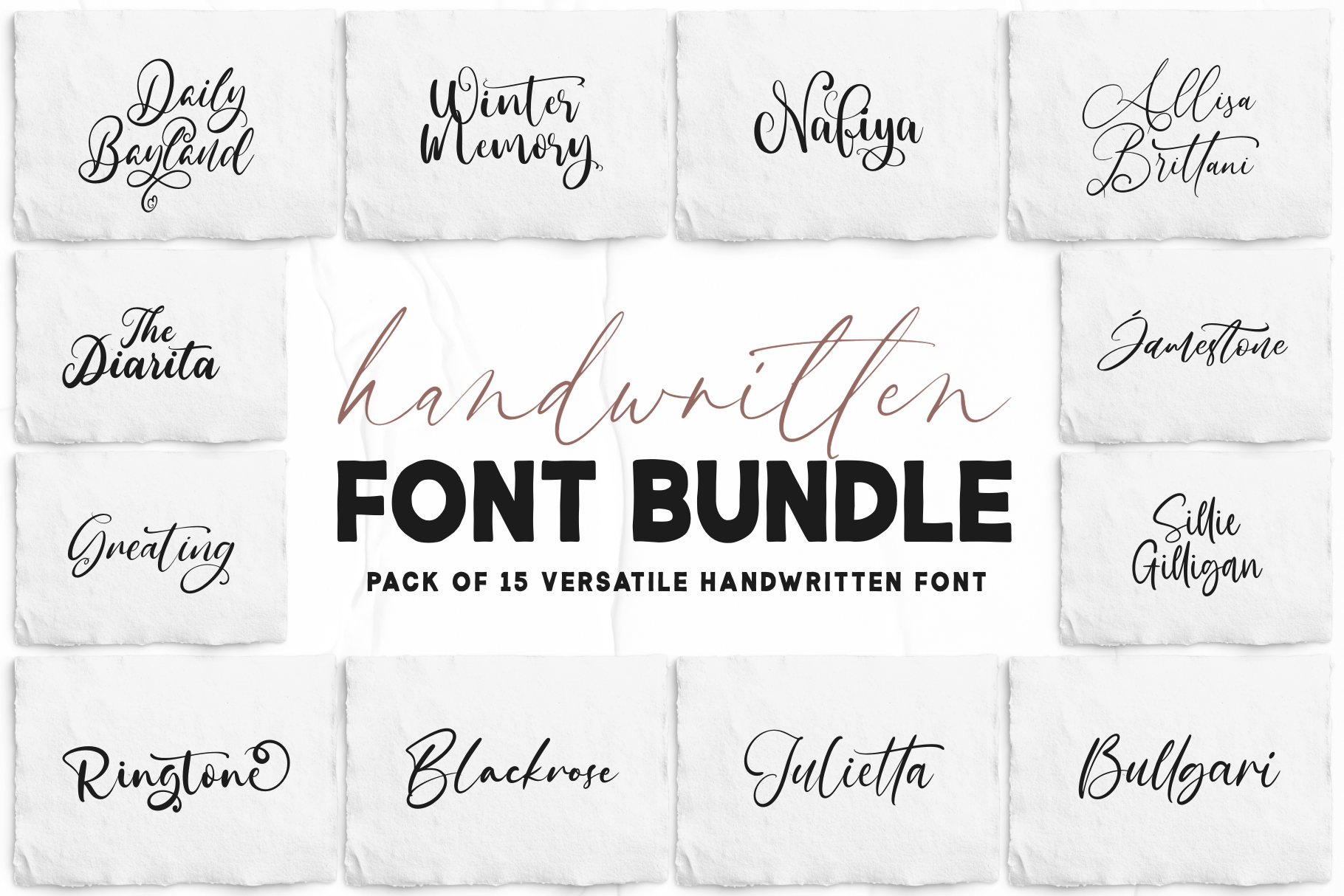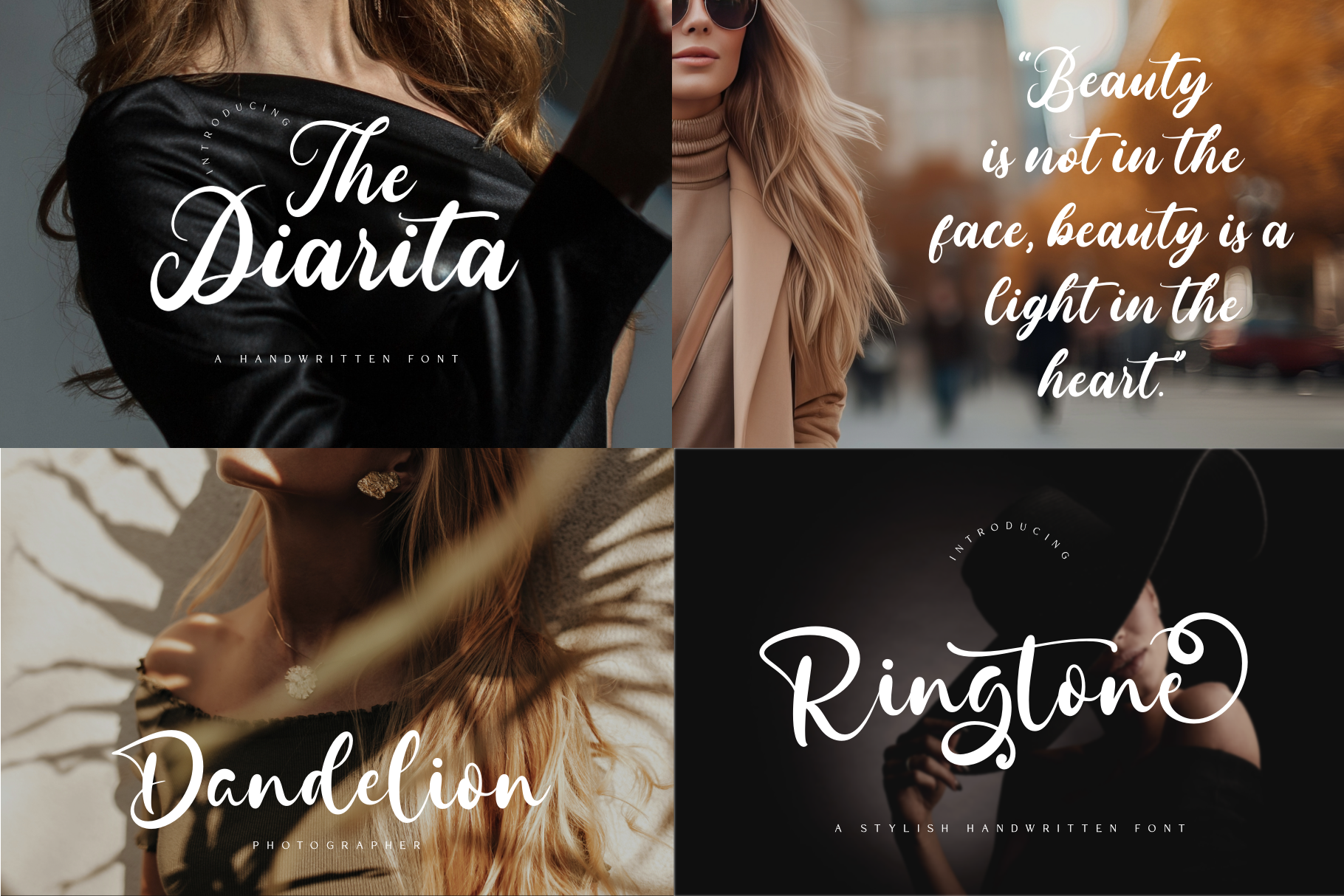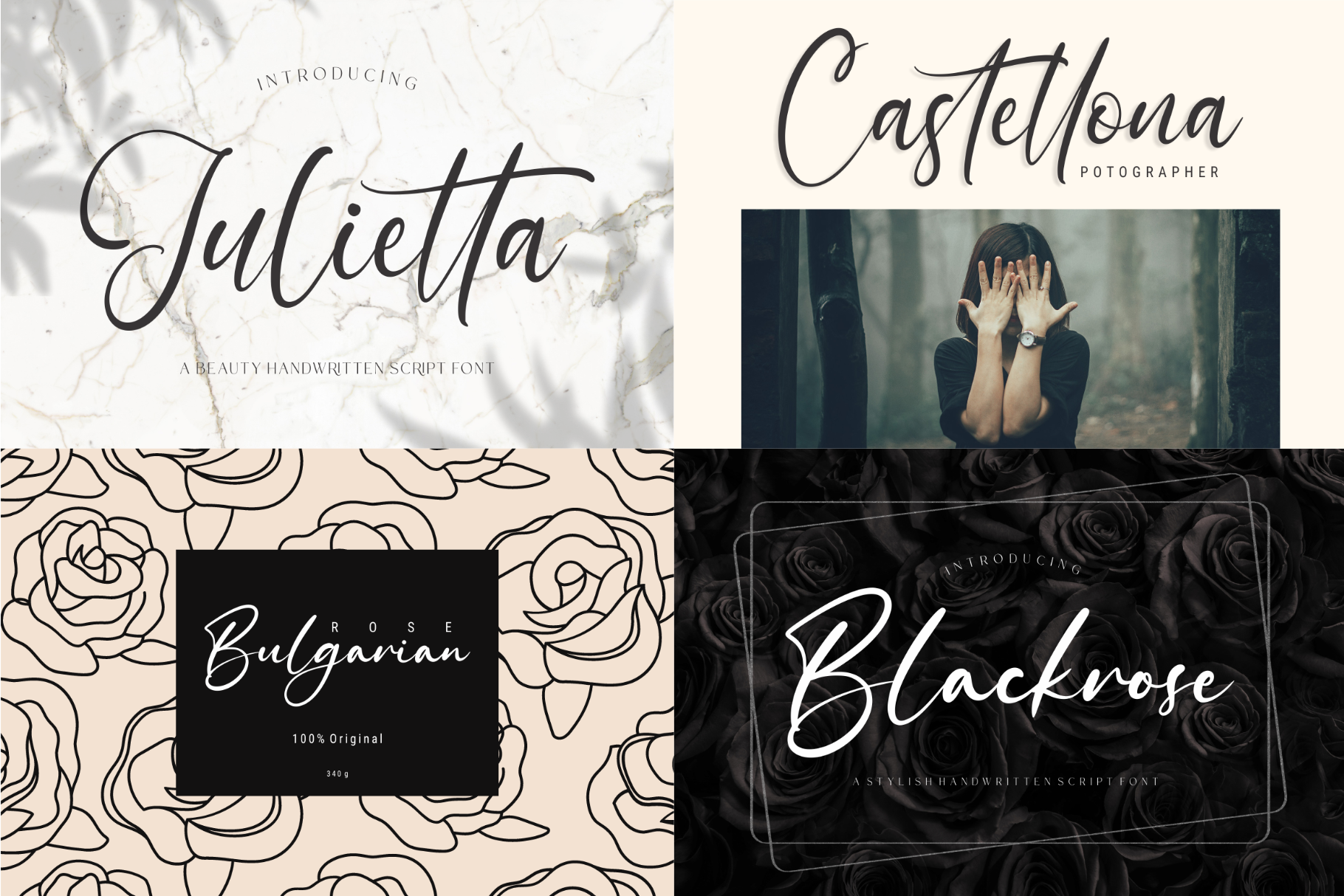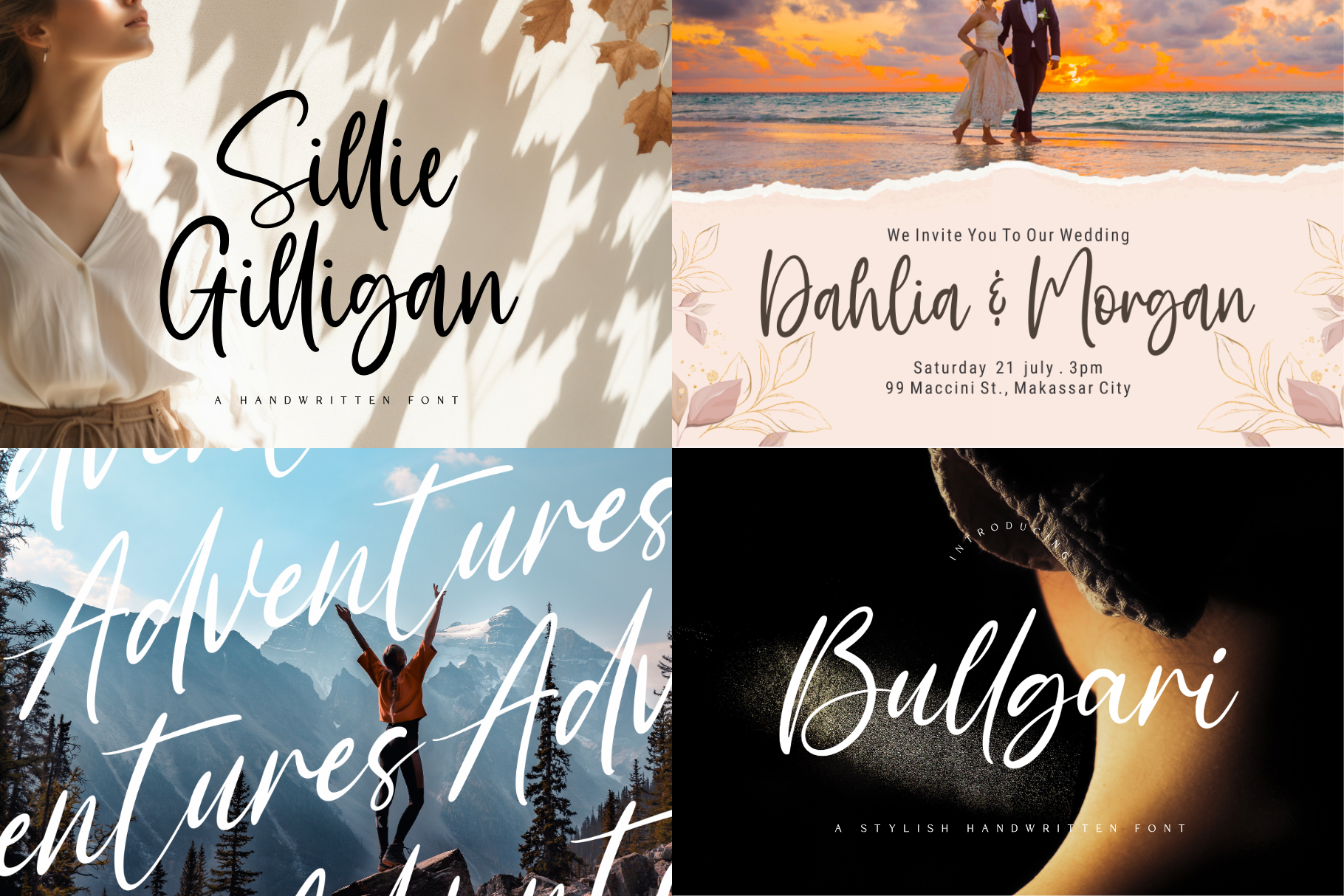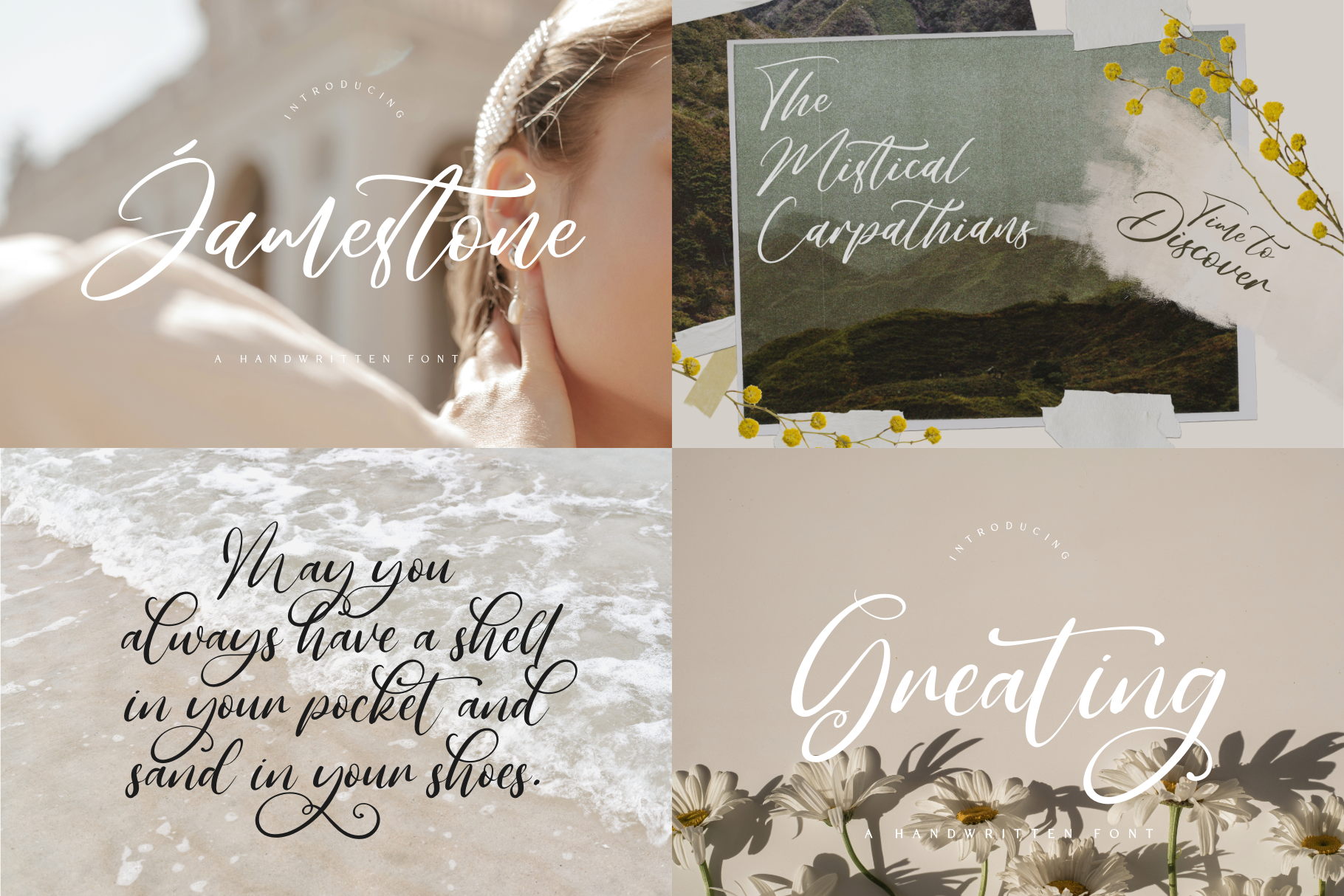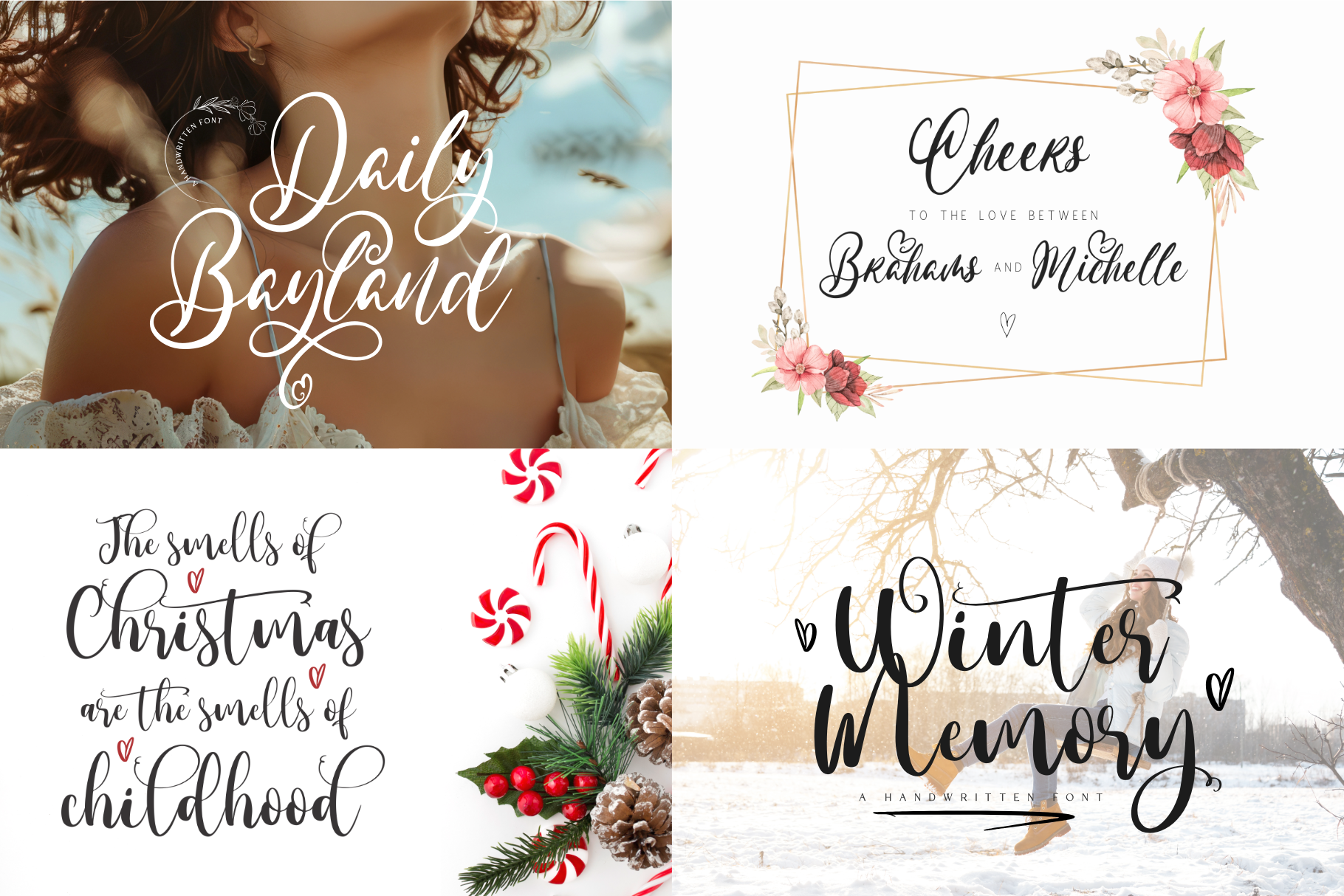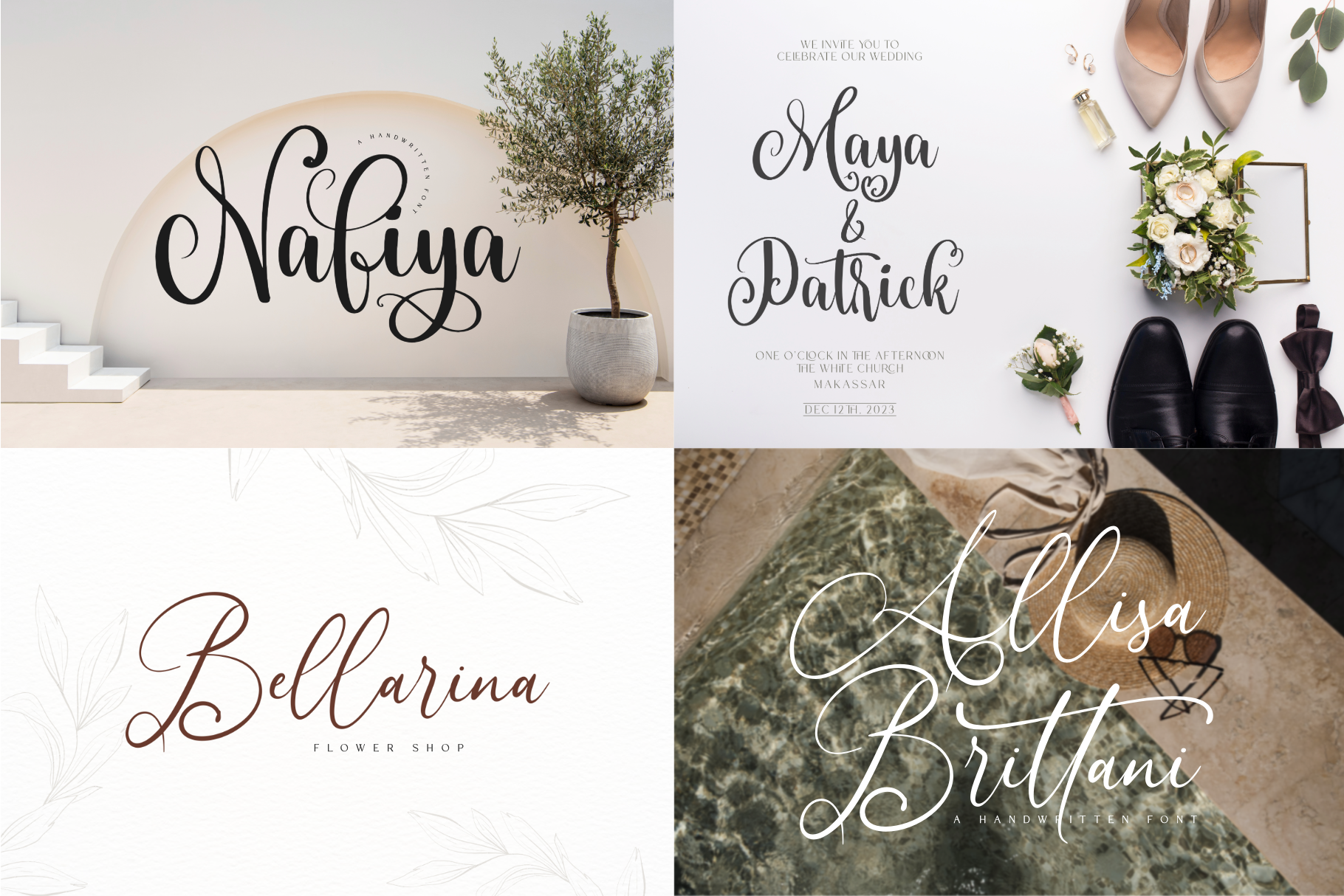
Handwritten Font Bundle - Pack of 15 Versatile Handwritten Fonts
Elevate your designs with our meticulously crafted Handwritten Font Bundle. This collection includes 15 unique and versatile handwritten fonts, perfect for adding a personal touch to your projects. Whether you're designing invitations, branding materials, or social media graphics, these fonts will bring a touch of elegance and individuality to your work.
Included Fonts:
Daily Bayland - A flowing, elegant script perfect for wedding invitations and greeting cards.
Winter Memory - A playful and whimsical font ideal for festive and seasonal projects.
Nafiya - A clean and modern handwritten font that adds a stylish flair to any design.
Allisa Brittani - A sophisticated and delicate script, great for branding and upscale designs.
The Diarita - A charming and approachable font, perfect for personal notes and letters.
Jamestone - A bold and striking handwritten font, excellent for headlines and posters.
Greating - A versatile and friendly script, suitable for a wide range of design applications.
Sillie Gilligan - A smooth and elegant font, perfect for luxury branding and high-end products.
Ringtone - A fun and lively script, great for playful designs and children's projects.
Blackrose - A dramatic and edgy font, ideal for fashion and editorial designs.
Julietta - A delicate and romantic script, perfect for wedding and event invitations.
Bulgari - A sophisticated and stylish font, great for logos and branding materials.
Saffira - A graceful and refined script, perfect for elegant design projects.
Fiolarita - A charming and friendly font, ideal for casual and inviting designs.
Chillatos - A cool and relaxed script, perfect for laid-back and contemporary projects.
Enhance your design toolkit with this comprehensive collection of handwritten fonts. Each font in the bundle is crafted with attention to detail, ensuring high quality and ease of use.